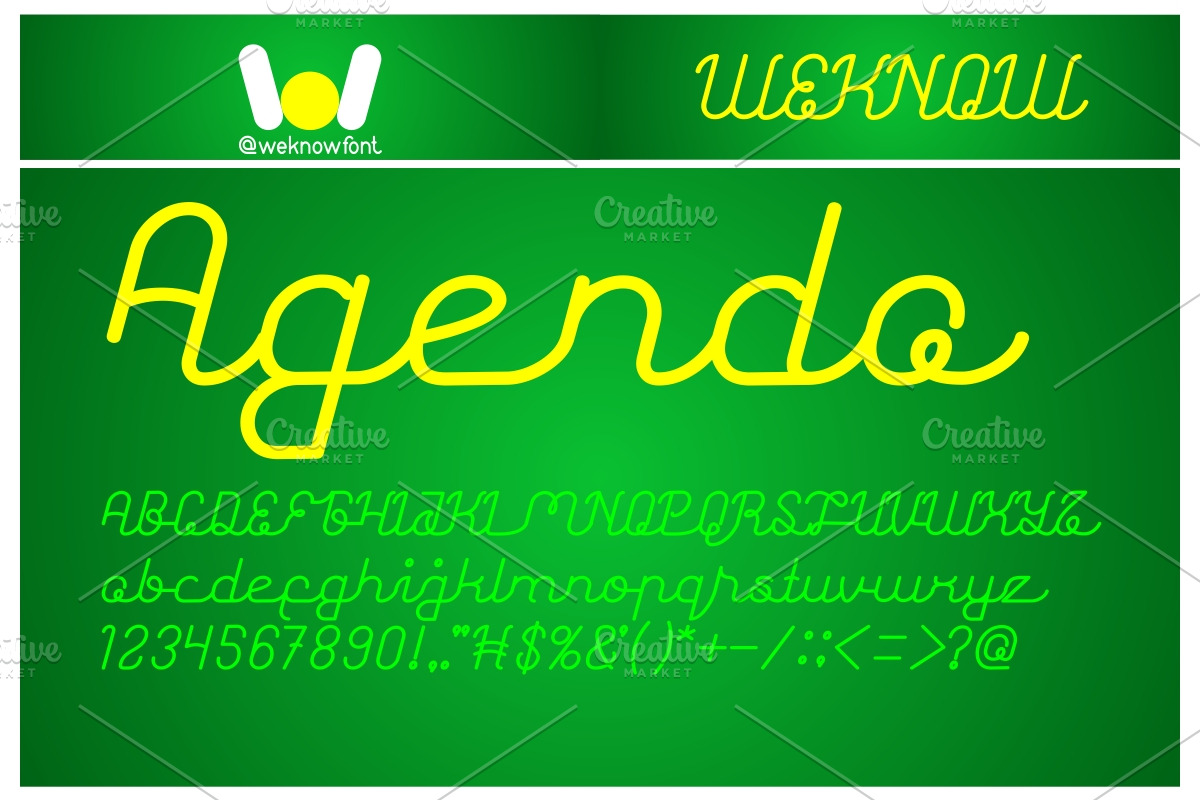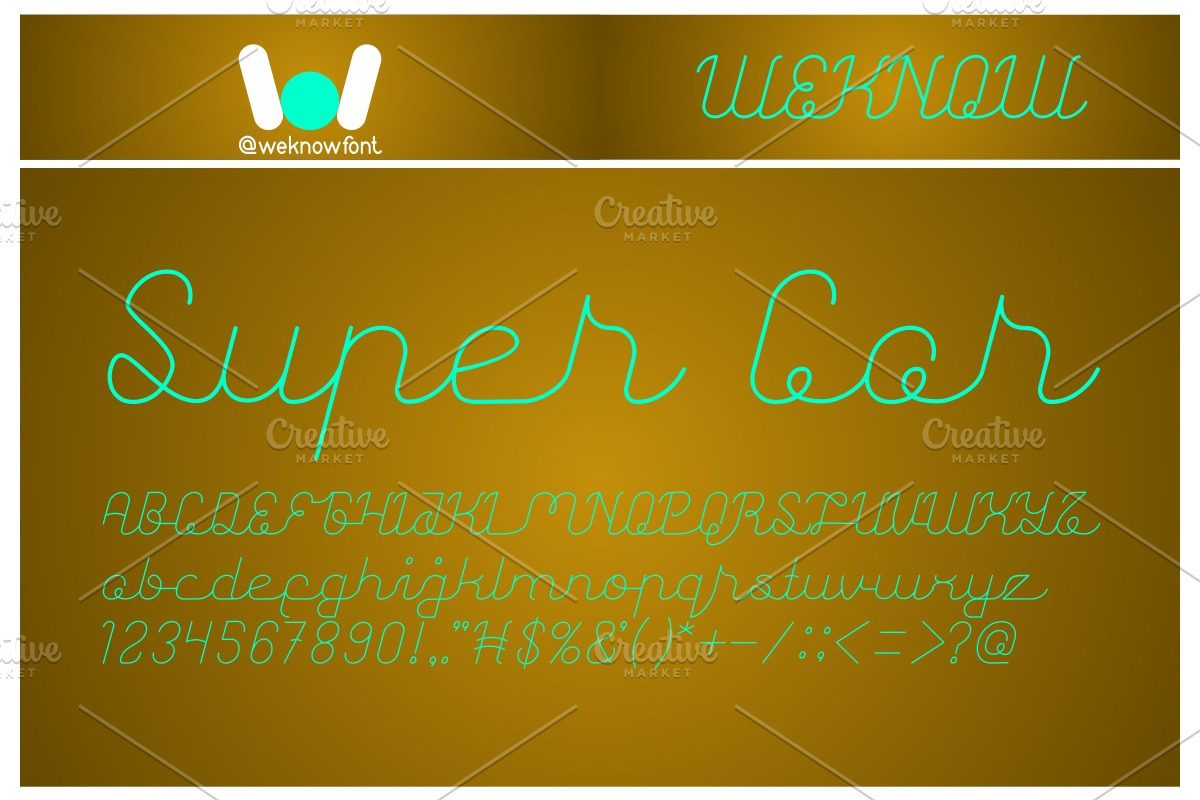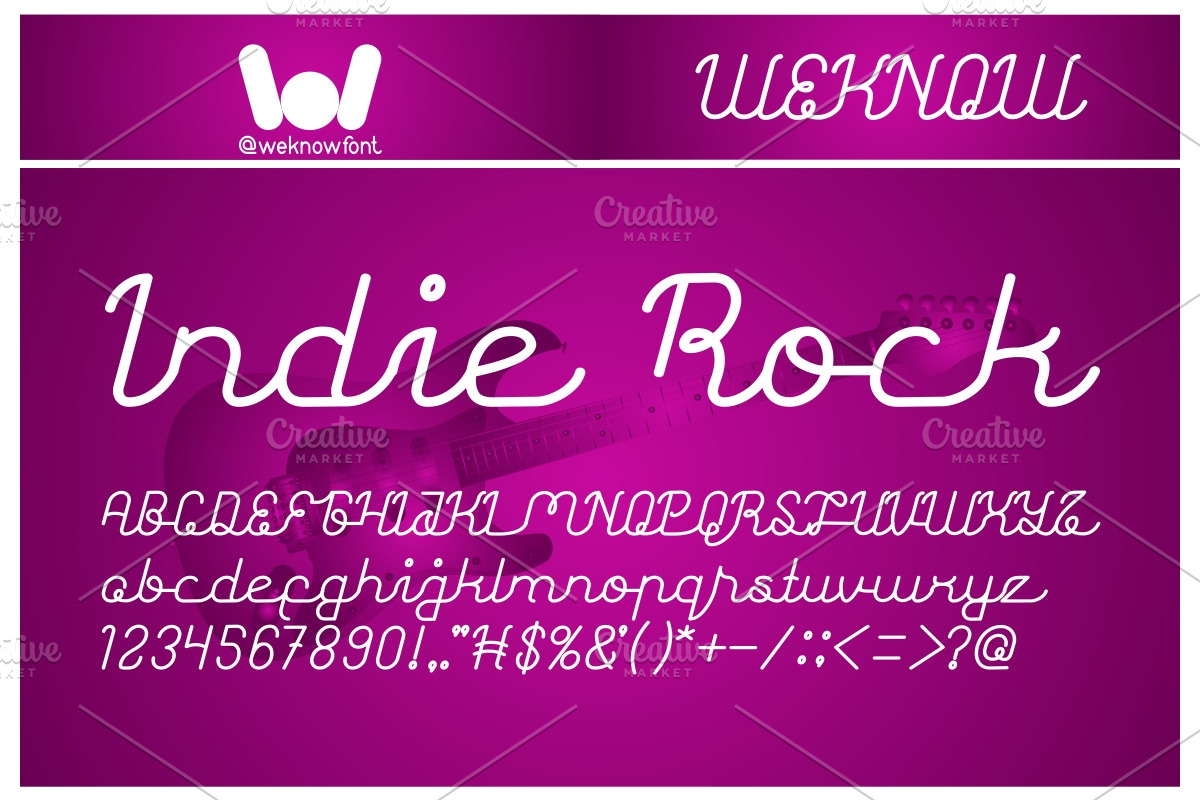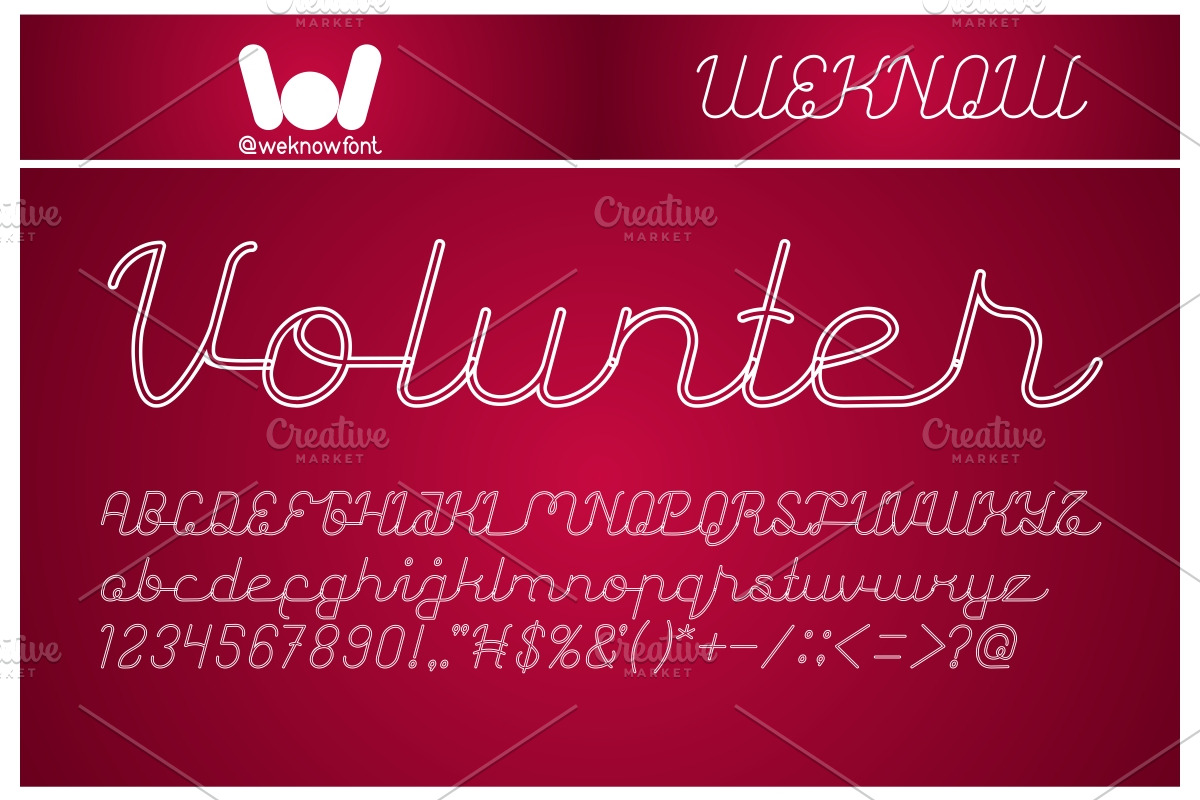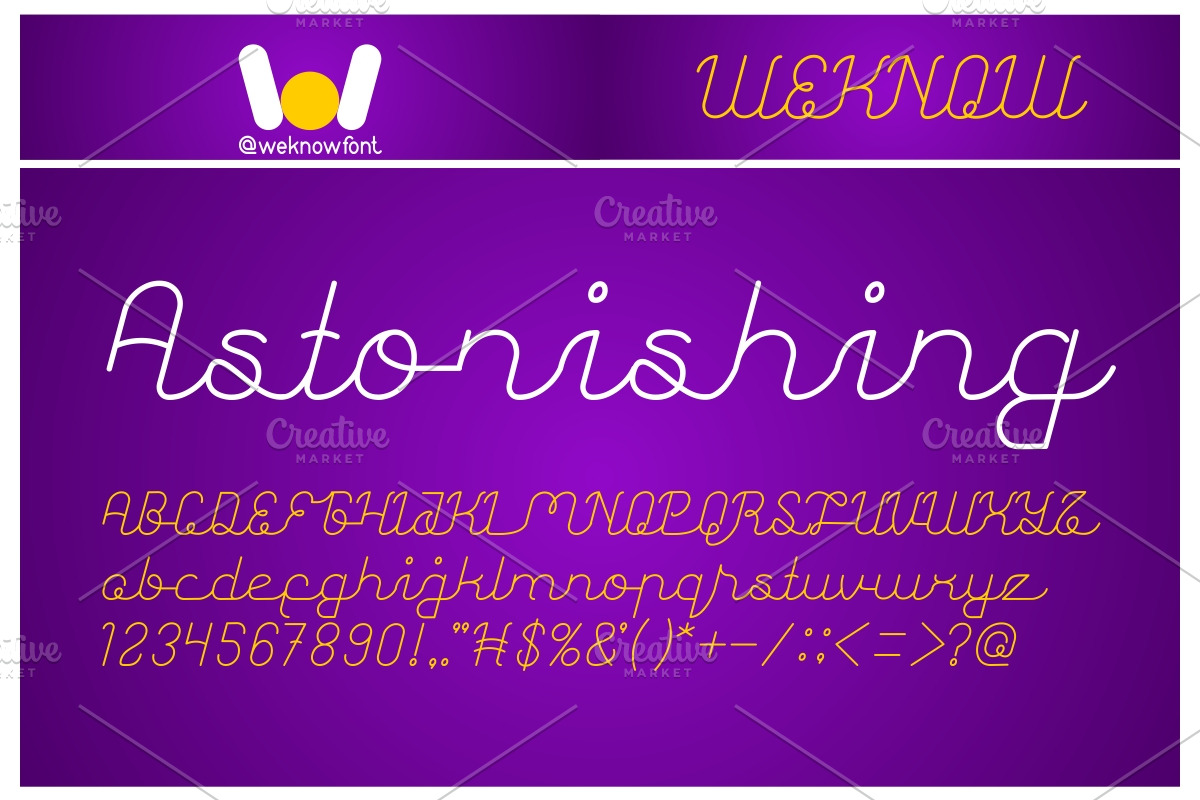
astonishing font
astonishing font by weknow is a font selected for branding, posters, packaging, typography.
Why astonishing font is worth a look
astonishing font by weknow fits naturally into Branding, posters, packaging, typography.